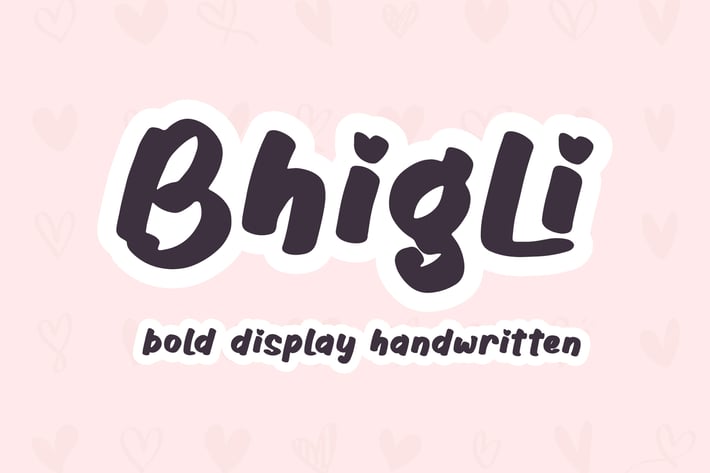
Bhigli Bold Display Handwritten Font
Bhigli Bold Display Handwritten Font is a cheerful and playful handwritten typeface that radiates friendliness and warmth. With its bold curves and heart-like accents, Bhigli adds a personal and joyful touch to any design — perfect for conveying positivity and charm.
Bold and rounded handwritten style
Playful and friendly character shapes
Uppercase and lowercase letters with smooth curves
Children’s books and story illustrations
Greeting cards and thank-you notes
Branding for playful or lifestyle products
Social media posts and quotes
DIY crafts, packaging, and stickers
* Educational or family-oriented projects
Friendly, fun, and full of heart — Bhigli Bold Display Handwritten Font brings a touch of happiness and personality to every design.